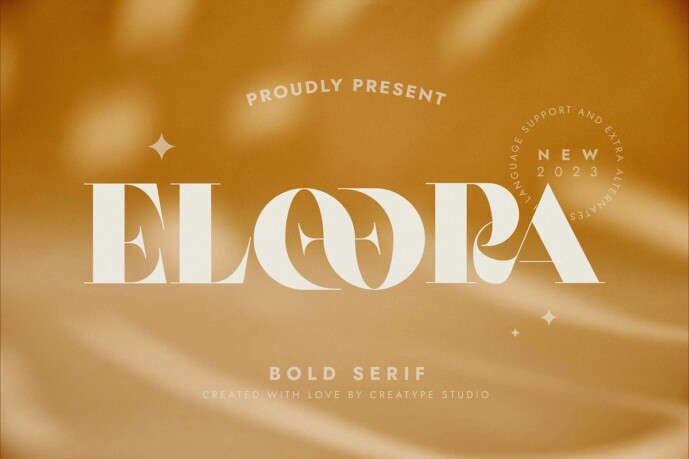
Eloora Bold Serif Font
Designer: Creatype Studio
Eloora Bold Serif Font – the high contrast bold serif typeface that seamlessly combines boldness with elegance, providing a versatile design solution for your brand
Eloora is perfect for branding projects, logos, wedding designs, social media posts, advertisements, product packaging, product designs, label, photography, watermark, invitation, stationery, and any projects that need handwriting taste.
• Ton of glyphs
• Ligature & Alternate